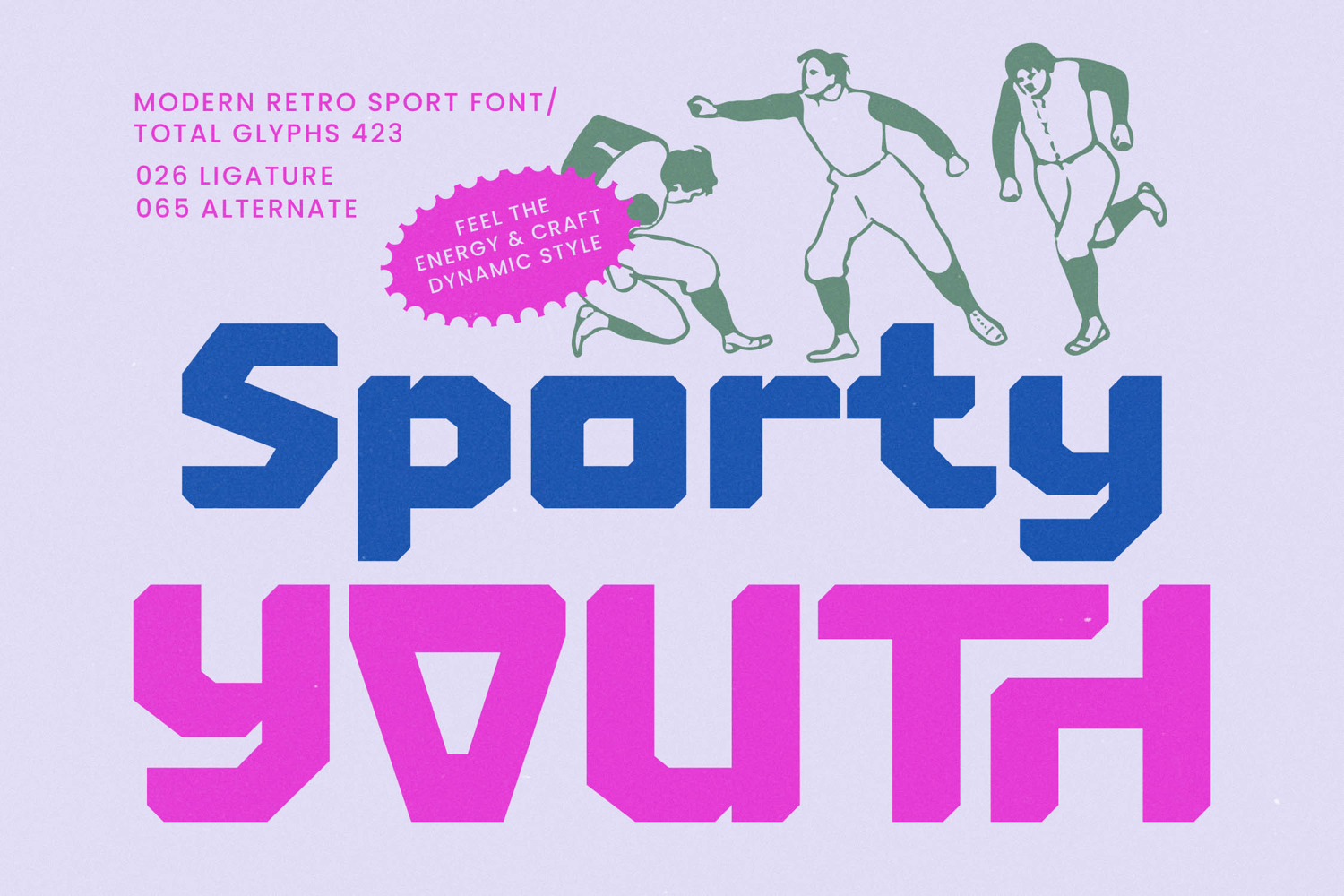
Sporty Youth - Modern Retro Sport Font
Unleash the power of nostalgic athletic design with Sporty Youth - Modern Retro Sport Font. This striking display typeface captures the raw energy and dynamic angularity of classic 80s and 90s sportswear branding. Defined by its bold, block geometry and sharply defined notches, it delivers an immediate visual impact that commands attention. It perfectly blends vintage inspiration with a clean, modern execution, making it an essential tool for designers seeking authenticity and vigor in their display typography.